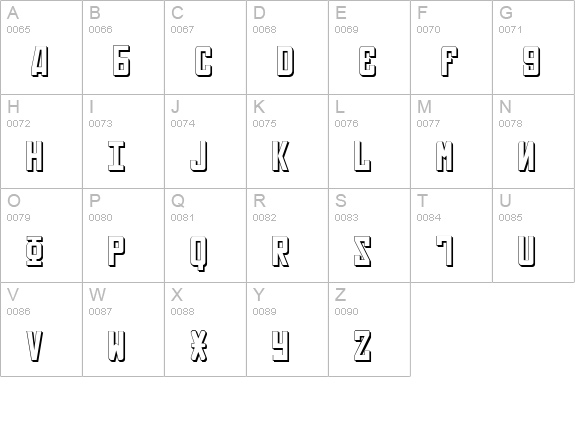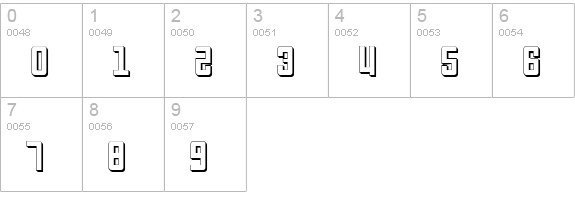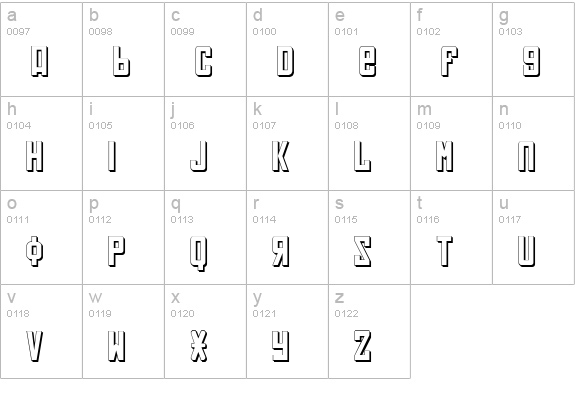
Introducing the captivating Soviet 3D font, a truly remarkable design that brings a touch of retro nostalgia to your digital creations. This unique and eye-catching typeface effortlessly combines the boldness and elegance of the Soviet era with the modern twist of three-dimensional effects. The Soviet 3D font is a versatile and powerful tool for graphic designers, artists, and anyone seeking to make a bold statement with their typography. Its distinct geometric shapes and sharp edges give it a strong and commanding presence, making it perfect for headlines, logos, posters, and other impactful designs. What sets the Soviet 3D font apart is not just its stunning visual appeal, but also its flexibility. With multiple variations and styles, you can choose the perfect aesthetic for your project, whether you're going for a rugged and industrial look or a sleek and futuristic vibe. And the best part? The Soviet 3D font is available for free download at FontsMarket.com, a trusted source for high-quality fonts. We believe that creativity should not be limited by financial constraints, which is why we have made this exceptional font freely accessible to everyone. So why wait? Unleash your creativity and bring a touch of Soviet-inspired flair to your designs with the Soviet 3D font. Download it today at FontsMarket.com and embark on a typographic journey that will captivate and inspire.